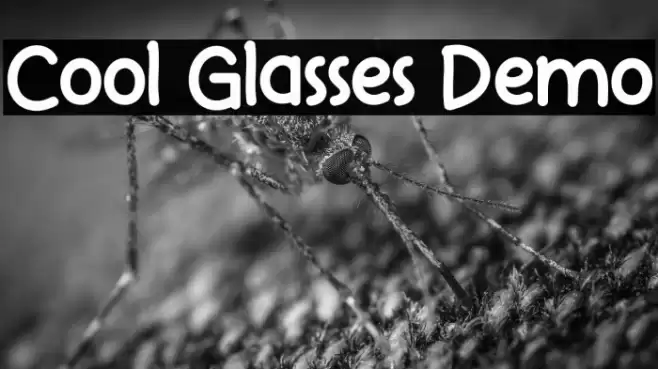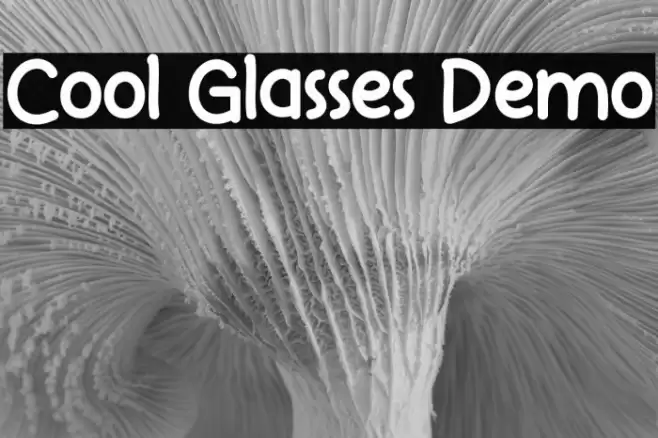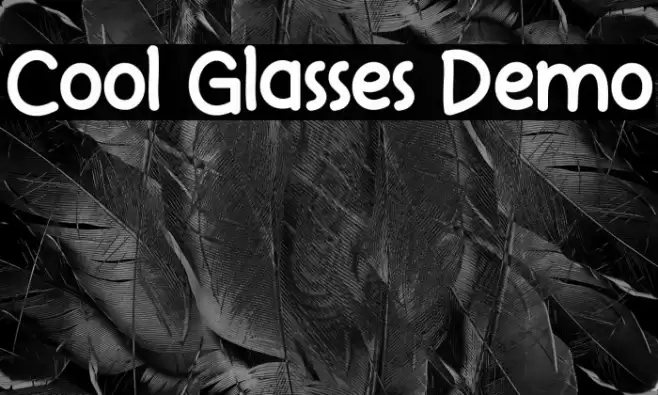
Cool Glasses Demo Font
Cool Glasses Demo Description
This playful and rounded font features a casual and friendly style, with smooth curves and a slightly whimsical appearance. The letters are bold and have a consistent stroke width, giving them a solid and approachable look. The uppercase and lowercase characters maintain a uniform style, with rounded edges and a slight slant that adds a touch of dynamism. The numbers and special characters are designed to match the overall aesthetic, ensuring a cohesive appearance across all text elements. This font's unique personality makes it ideal for projects that require a fun and engaging visual impact.
A playful, rounded font with a casual and friendly style from Regular fonts.
- Proposed Projects: Ideal for children's books, playful branding, casual invitations, and creative posters.
- Overall Style: Playful